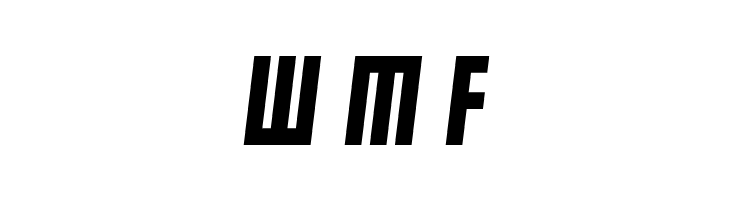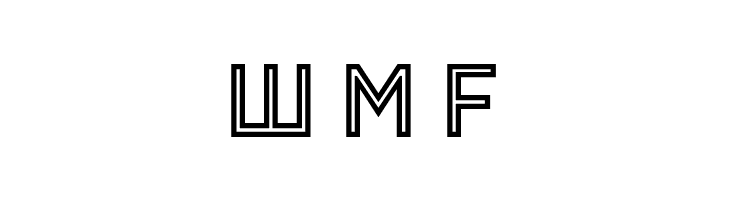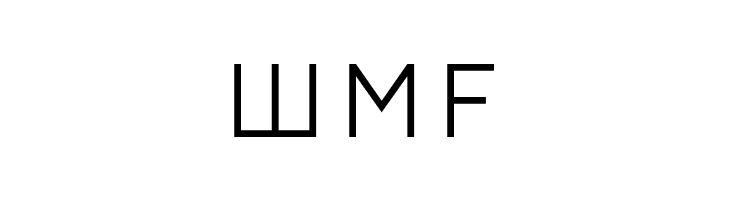
An ornate and sophisticated font with intricate calligraphic details.
A bold, elegant font with tall, narrow characters and a sophisticated style.
A playful, hand-drawn font with rounded, irregular edges and a whimsical style.
A bold, distressed font with a rugged, weathered appearance.
A bold, geometric inline font with a modern, structured appearance.
A geometric, modern font with clean lines and sharp angles.
A bold, geometric font with sharp, angular edges and a strong presence.
A bold, blocky font with a strong geometric style, perfect for impactful headlines.
A bold, geometric font with angular lines and a blocky appearance.
A bold, playful handwritten font with thick strokes and a casual style.
A bold, gothic blackletter font with intricate, angular designs.
A classic Gothic font with ornate, high-contrast letterforms.
A bold, blackletter font with a medieval, Gothic style.
A bold, italic Blackletter-style font with strong, angular strokes.
A playful, handwritten font with rounded, consistent strokes.
A playful, handwritten font with bold, rounded characters.
A bold collection of dinosaur silhouettes, perfect for impactful designs.
A farm-themed dingbat font with bold produce and livestock icons.
A playful, hand-drawn font with rounded characters and a whimsical style.
A playful, bold handwritten font with an italic slant.